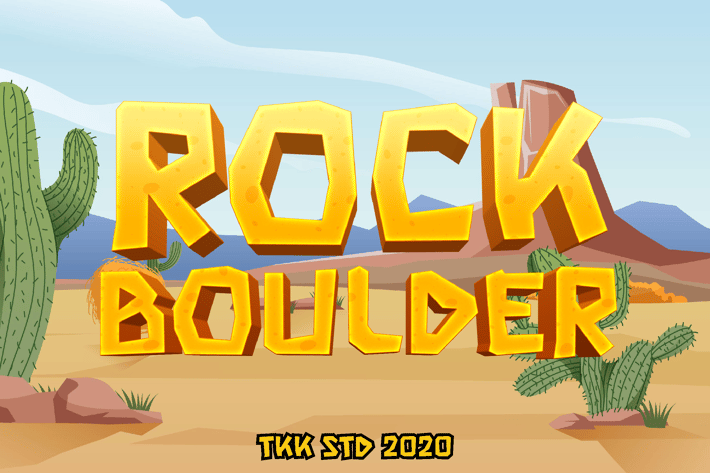
Rock Boulder - Gaming Font
Rock Boulder
Rock Boulder is a chunky, adventure-themed display font featuring rugged geometric forms, sharp terminals, and playful cuts that feel carved from stone. With its bold presence and solid letterforms, it brings an energetic, outdoorsy vibe—perfectly suited for projects in children’s entertainment, mobile games, cartoons, and educational content.
The font’s angular details and wide spacing mimic rock formations and desert landscapes, making it a standout for titles, splash screens, and themed branding where character and fun storytelling matter most.
Whether you're crafting an educational game about ancient Egypt, a kids’ travel story, or a fun adventure T-shirt, Rock Boulder’s strong, expressive personality brings instant warmth and engagement. It’s ideal for kids apps, cartoon logos, classroom posters, YouTube thumbnails, and printed merchandise.
This typeface does more than look playful—it guides the eye and creates emotional connection through fun and familiarity.
Adventure-Driven Design
- Blocky, bold, and wide letter shapes with playful irregularity
- Inspired by desert landscapes, pyramids, and ancient adventure worlds
- Easily readable yet visually textured for added character
Perfect for Visual Storytelling
- Great for children’s products, history-themed games, and fun learning content
- Adds weight and personality to short texts, headlines, or UI menus
- Optimized to look good across screens and prints